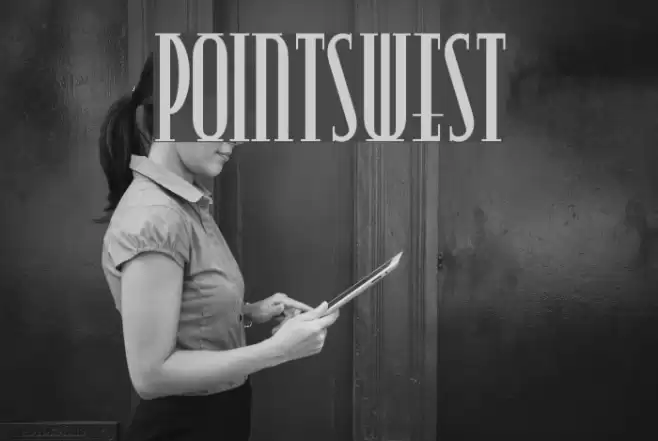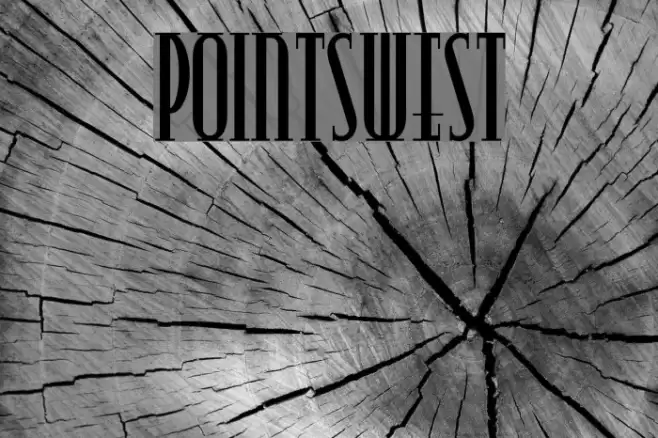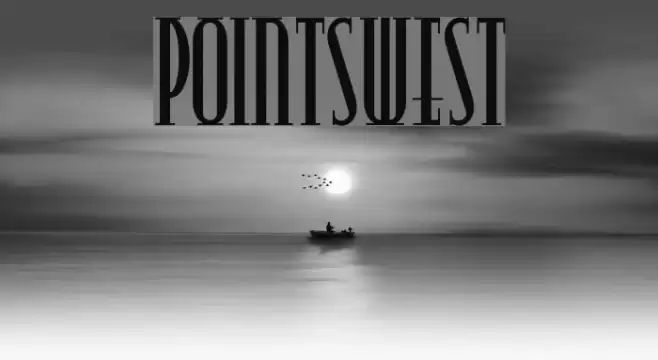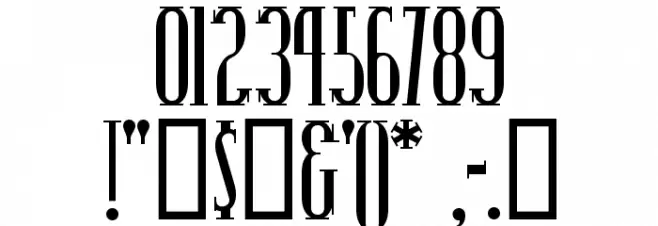
PointsWest Font
PointsWest Description
This font features a striking and bold design with tall, narrow characters that exude a sense of elegance and sophistication. The vertical emphasis is pronounced, with elongated strokes and minimal serifs that add a touch of modernity. The uppercase letters are particularly commanding, while the lowercase letters maintain the same verticality, creating a cohesive look. Numbers and special characters are designed to match the overall aesthetic, ensuring consistency across all text. This font's unique style makes it stand out, making it ideal for projects that require a strong visual impact.
A bold, tall, and narrow font with minimal serifs and a modern touch from Uncategorized fonts.
- Proposed Projects: Ideal for branding, posters, headlines, and any project requiring a strong visual impact.